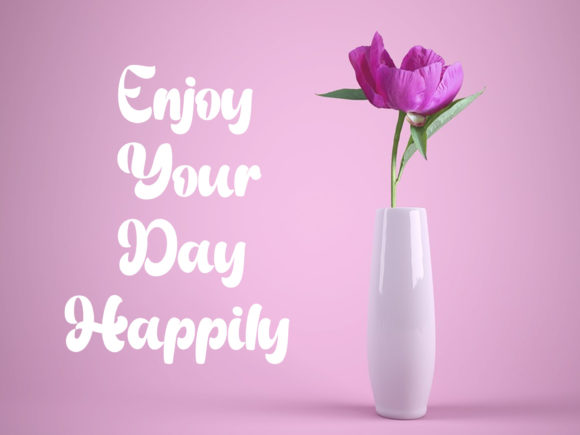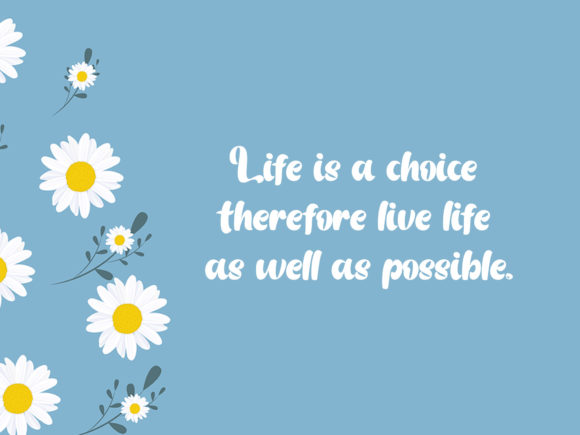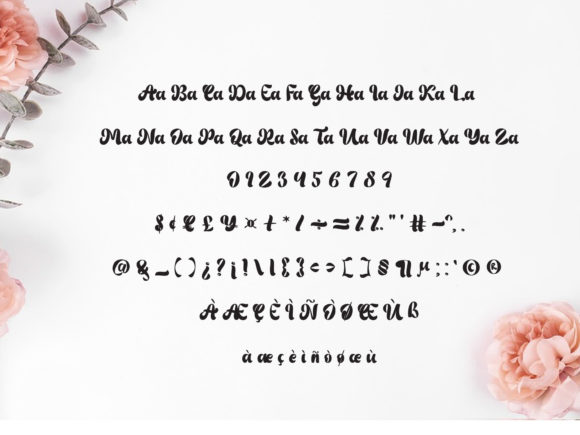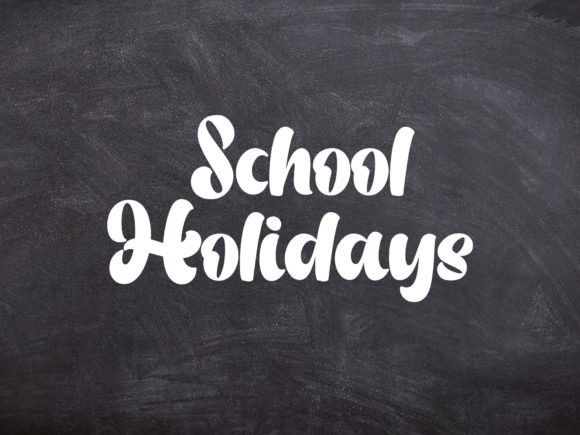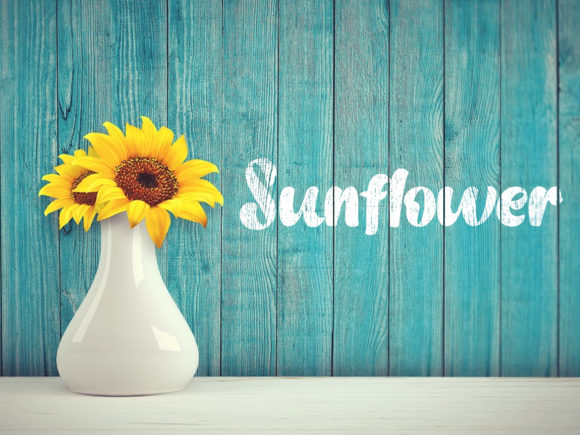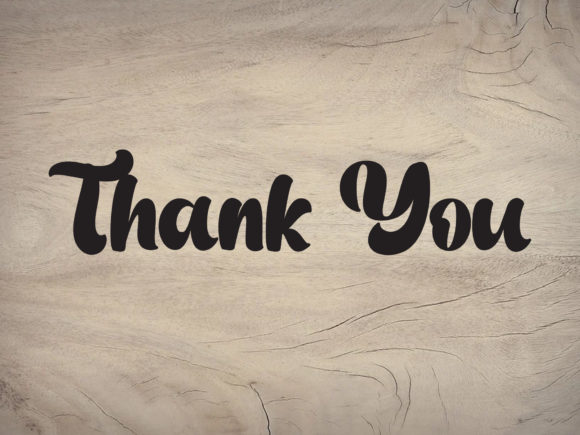
Black Shark Font
About Black Shark Font
“Black Shark” is introduced as a unique and retro-looking handwritten font, crafted with great care to achieve the desired results. The font is versatile and can be used for writing titles, invitations, letters, and various other types of informal products.
The description of “Black Shark” as unique and retro-looking suggests a font that stands out with a distinctive and vintage aesthetic. This positioning makes it suitable for applications where a touch of nostalgia or a unique visual appeal is desired, particularly in informal and creative contexts.
The font’s versatility across titles, invitations, and letters indicates that “Black Shark” can adapt to different informal products, providing designers with a tool for creating a retro-inspired and visually appealing typography.
In summary, “Black Shark” is presented as a handwritten font that combines uniqueness and a retro look, making it suitable for various informal design products. Whether used for titles, invitations, or letters, the font is positioned as a versatile choice for designers seeking a distinct and carefully crafted typeface for their creative projects.